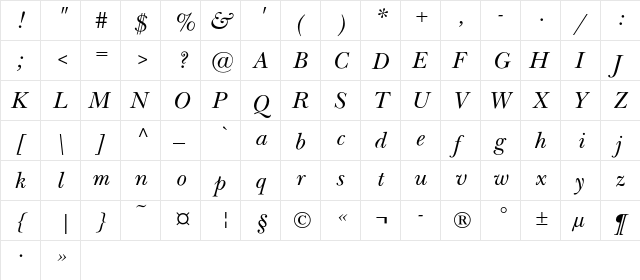
NewBaskervilleExpOdC Italic
Design Context for NewBaskervilleExpOdC Typeface
NewBaskervilleExpOdC takes a measured approach to typography — its balanced proportions and neutral character make it a reliable workhorse for both digital and print work. The slanted form adds forward momentum and visual energy.